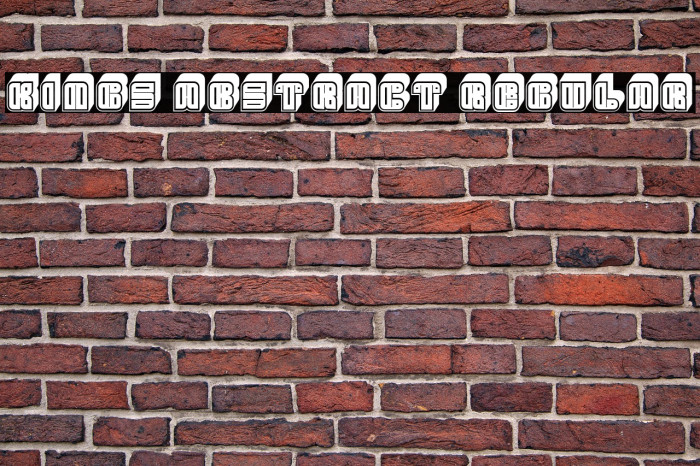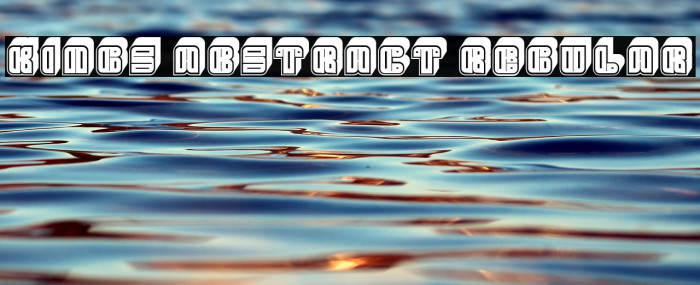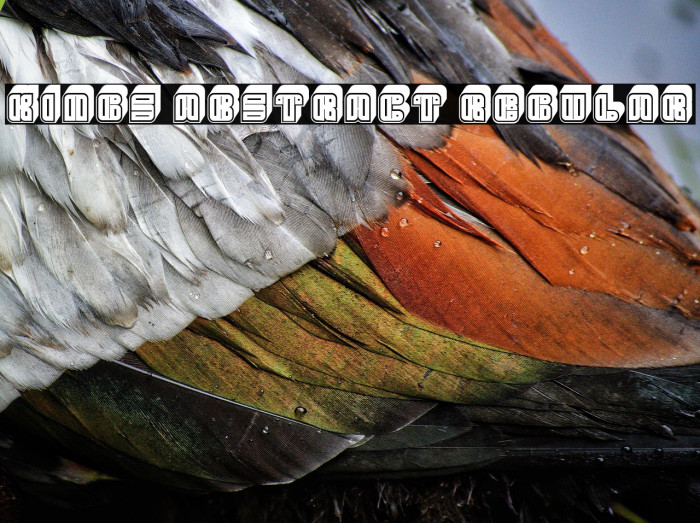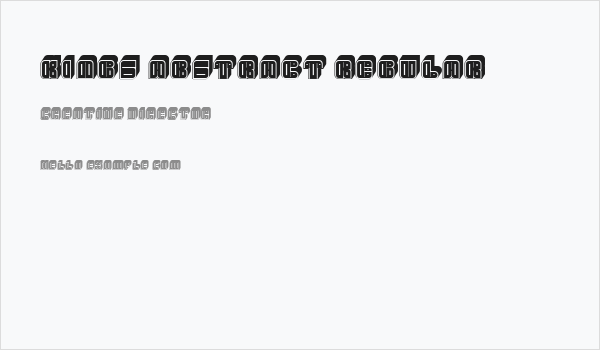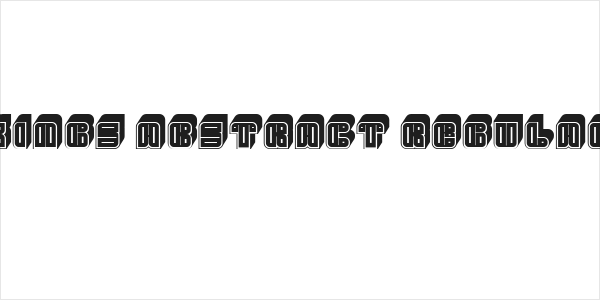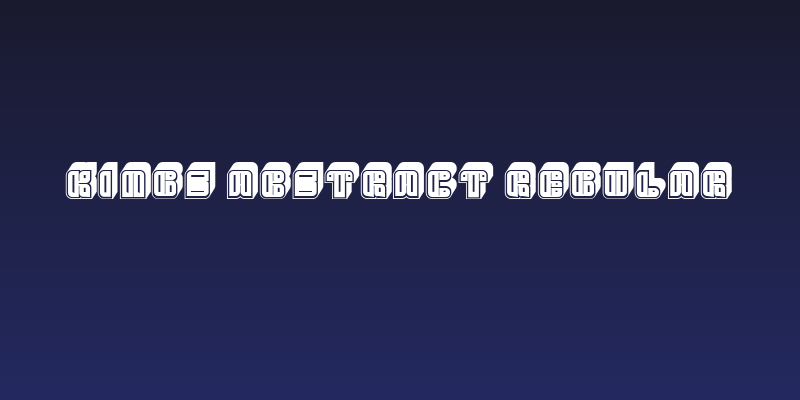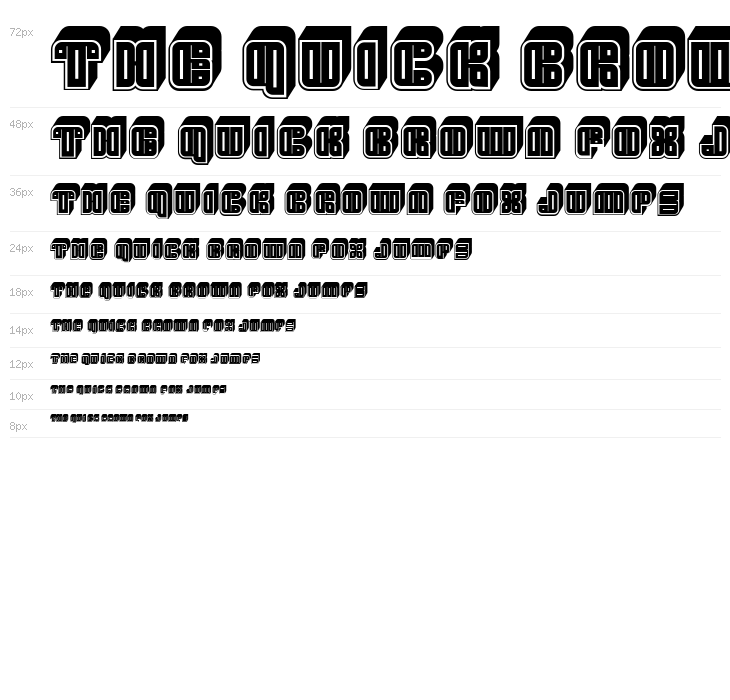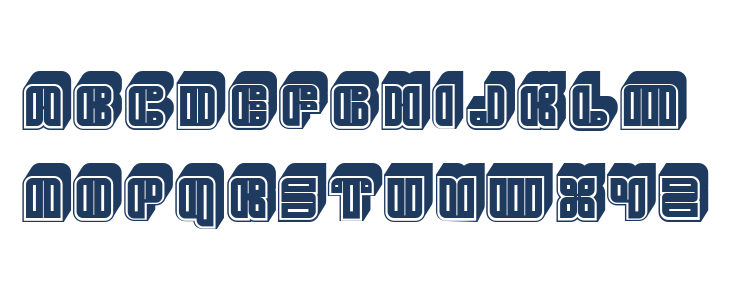
Kings Abstract Regular Font
Kings Abstract Regular Description
This font features a bold, geometric design with a strong emphasis on symmetry and structure. Each character is enclosed within a thick, black outline that adds a sense of depth and dimension. The interior of the letters is filled with intricate patterns and shapes, creating a striking contrast against the solid outline. The font's style is reminiscent of abstract art, with a modern twist that makes it stand out. Its unique design elements make it suitable for projects that require a distinctive and eye-catching typeface.
| Overall Style | Modern, Abstract |
| Proposed Projects | Ideal for posters, album covers, branding, and any project needing a bold, artistic touch. |